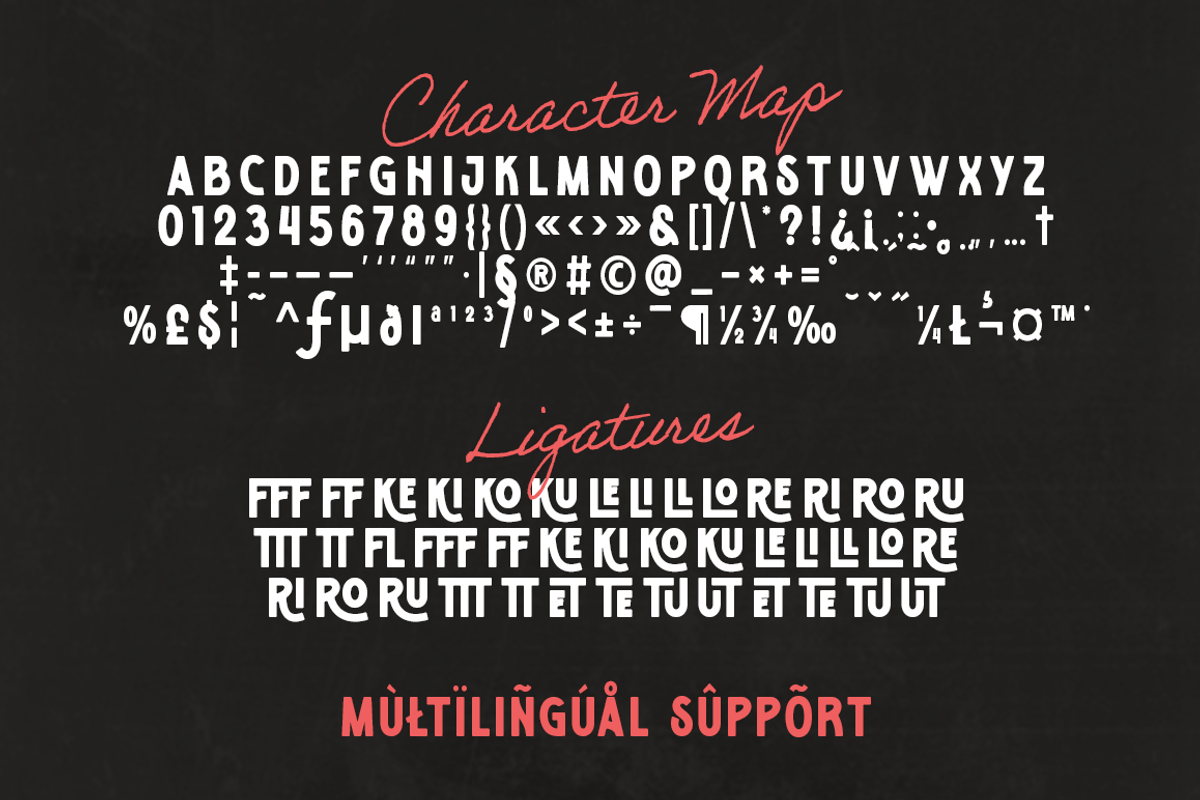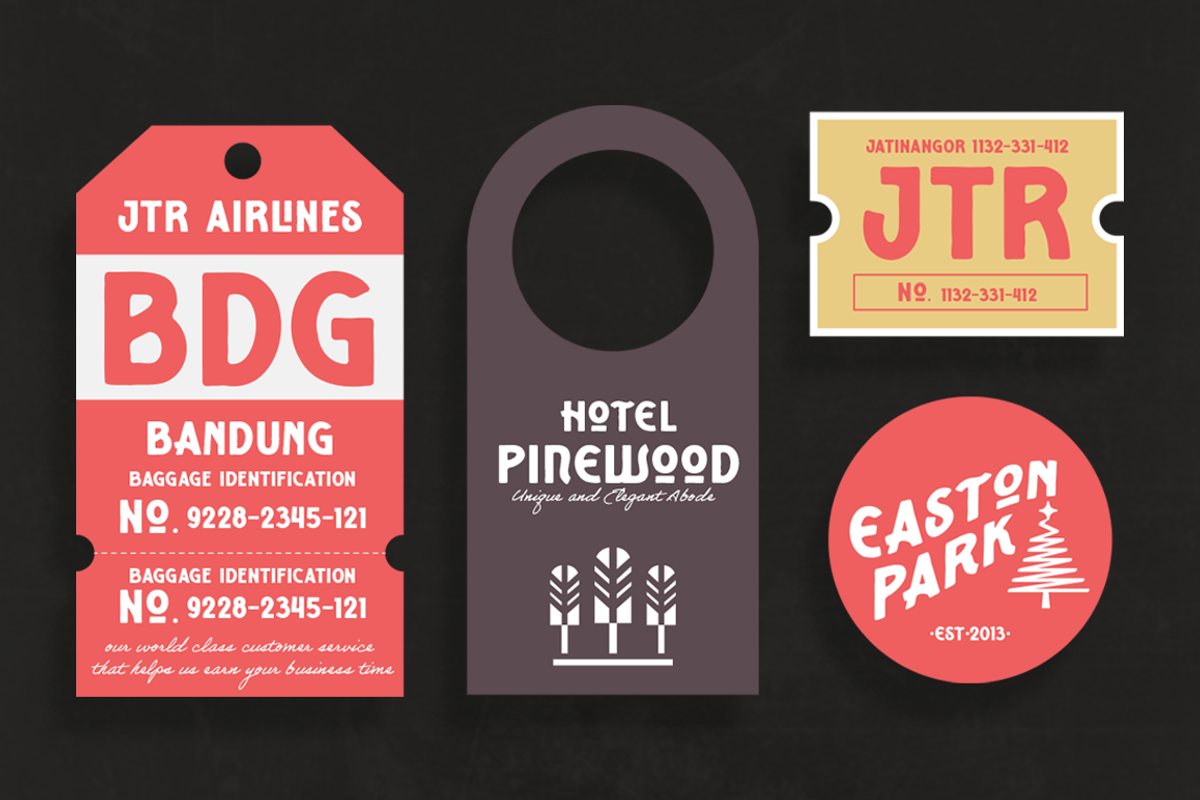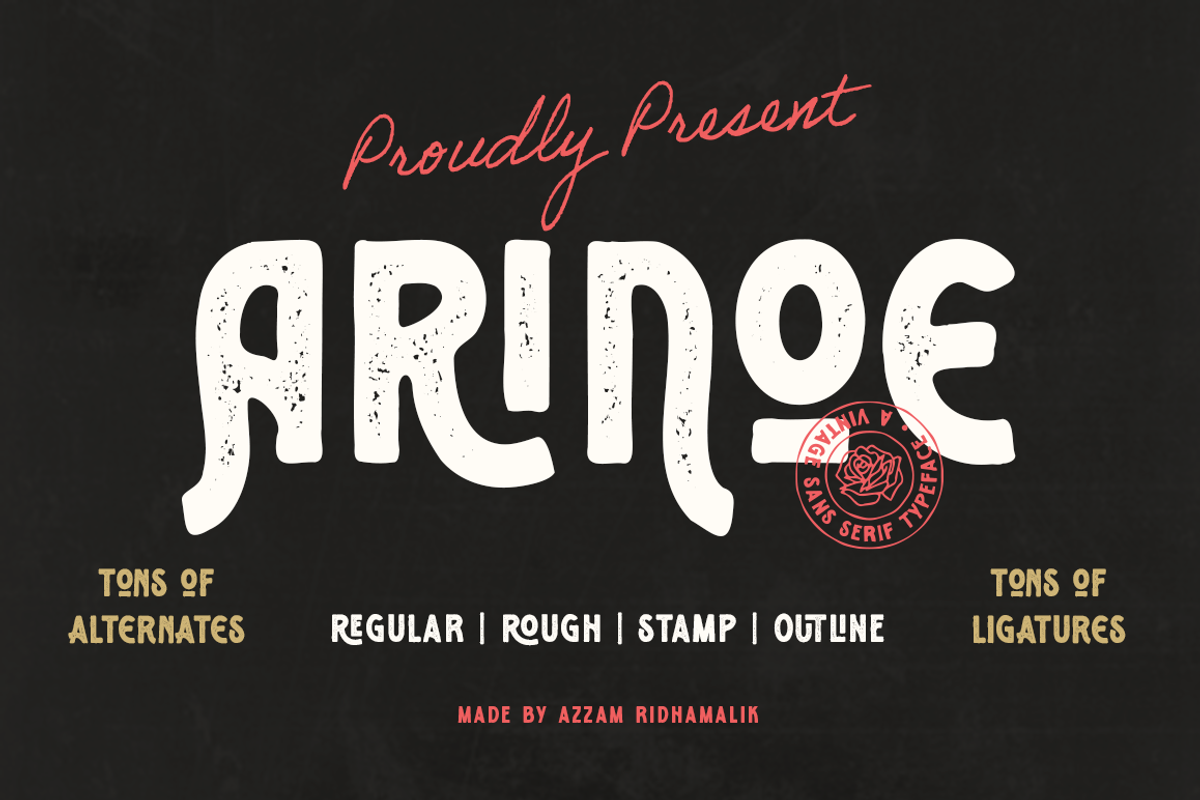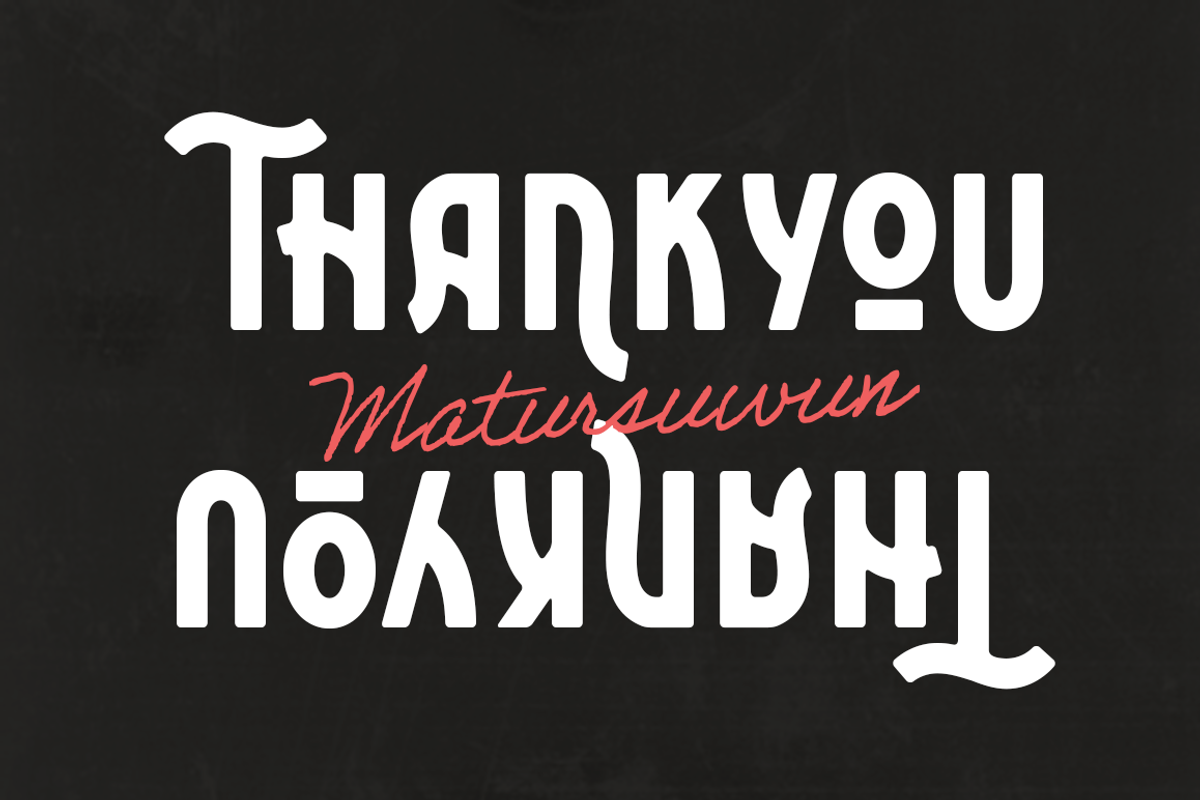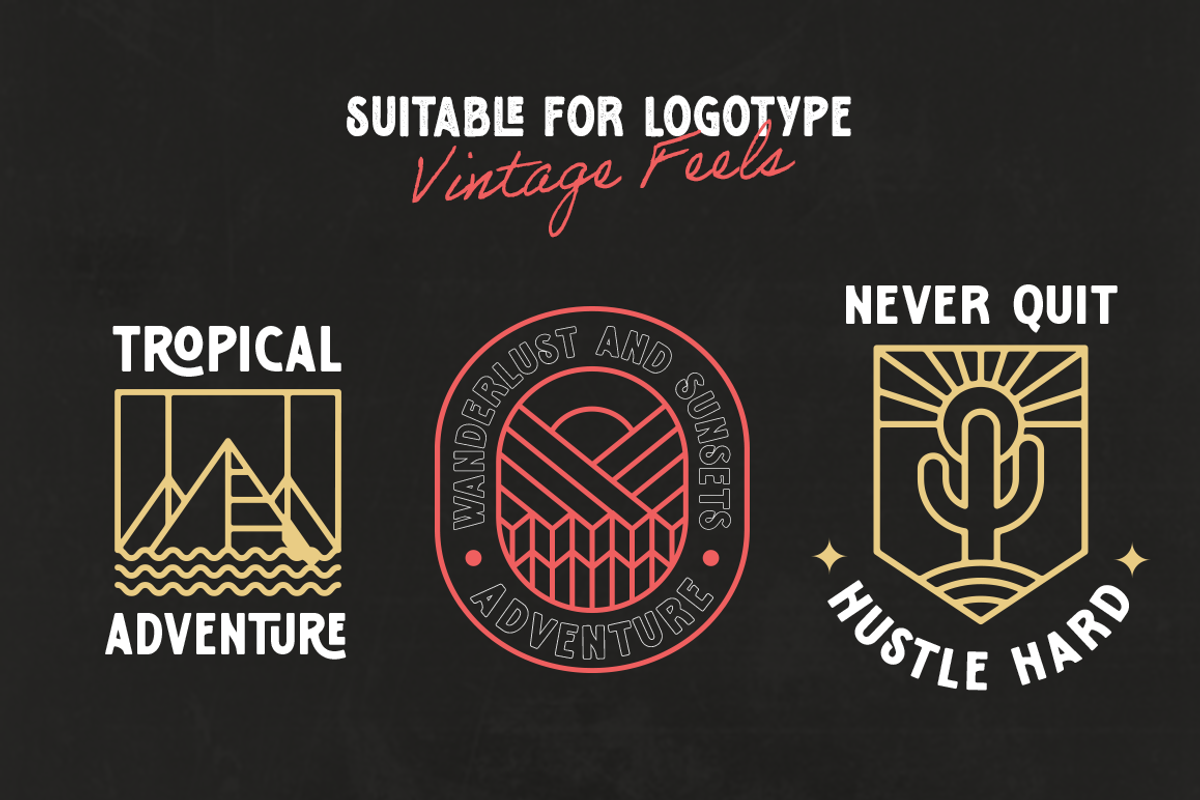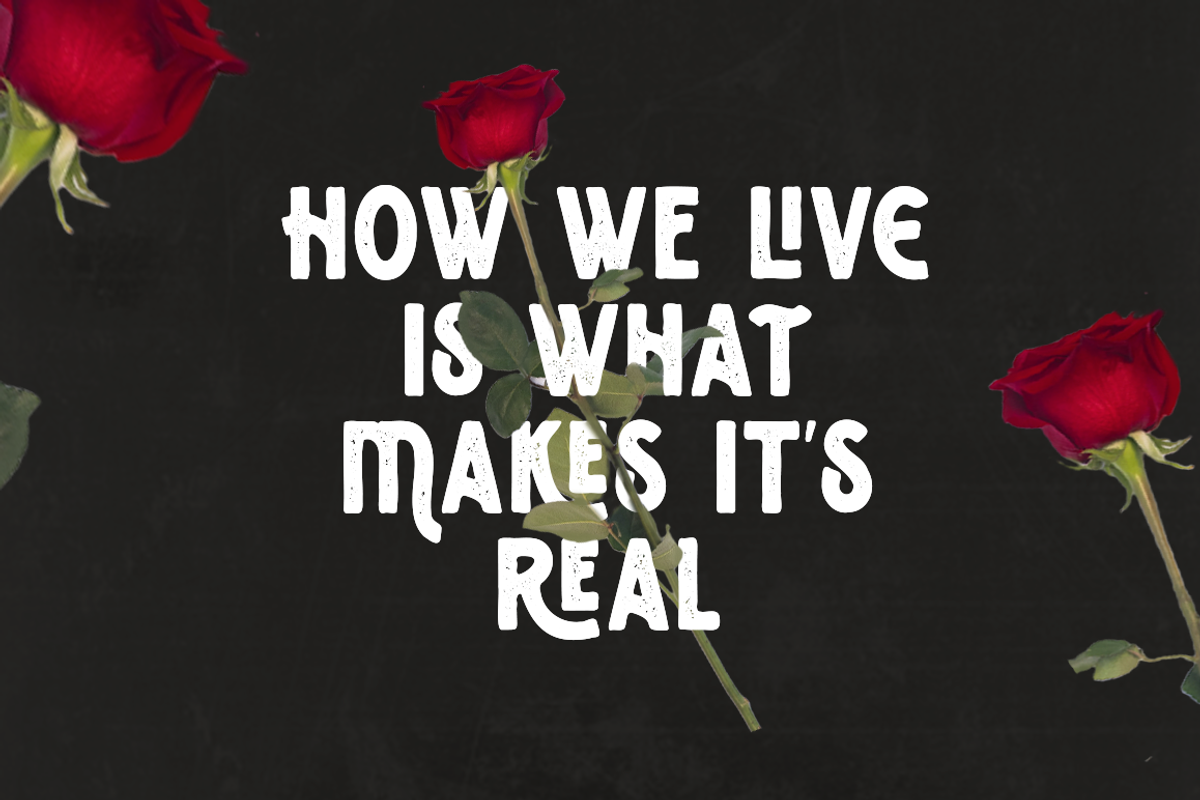
Arinoe - Vintage Font
Vintage Font Arinoe is a cool display font that embodies uniqueness and authenticity in every character. Comes with tons of Alternates and Ligatures which is fun to explore for your design needs. Get inspired by its rustic feel from Vintage Font Arinoe, and use it for your lovely creative projects!
- Number & Punctuation
- Ligatures & Stylistic Alternates